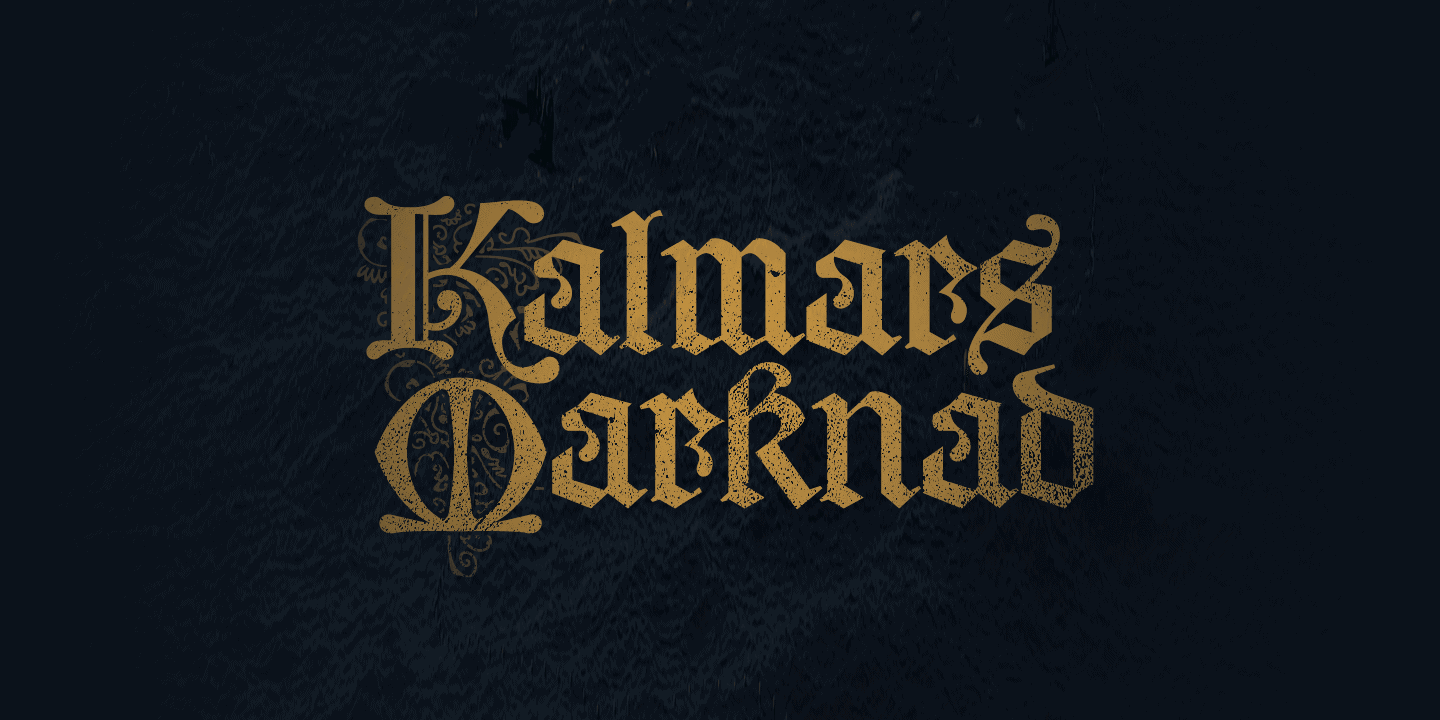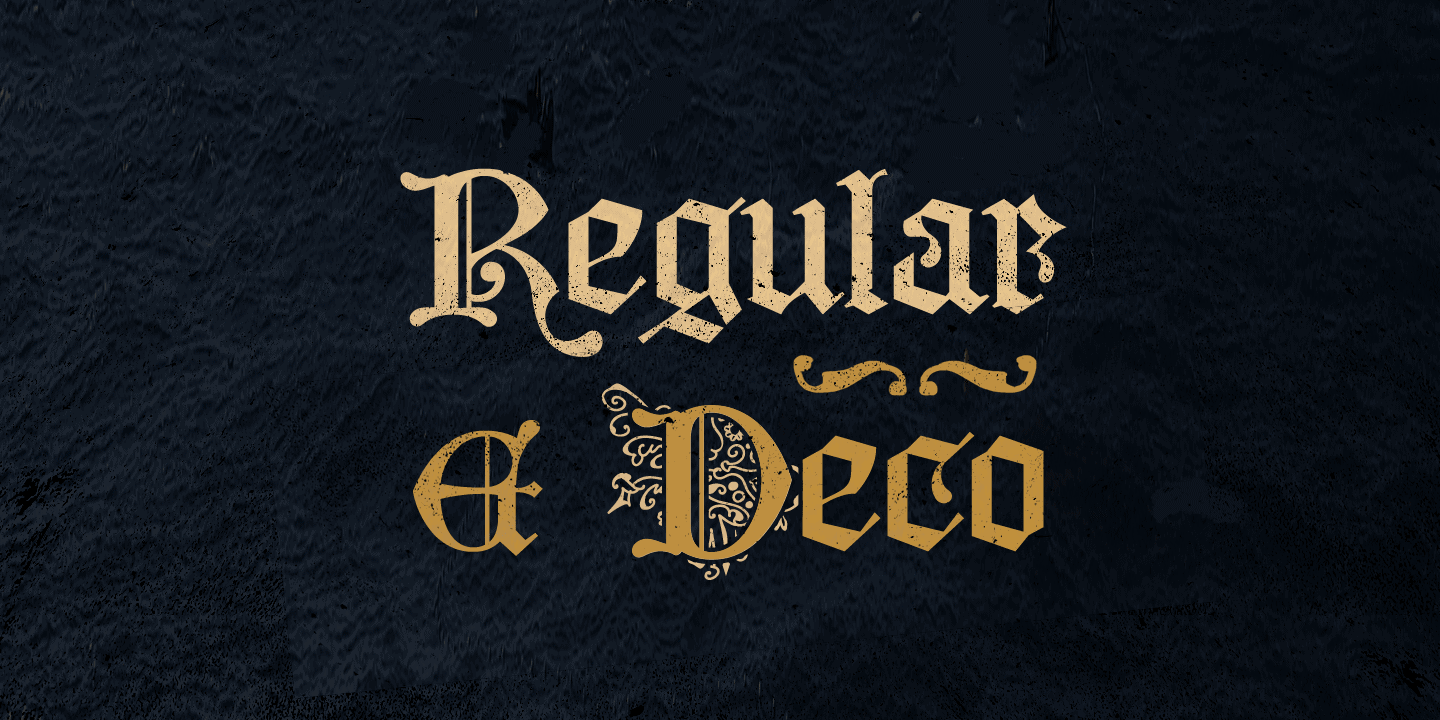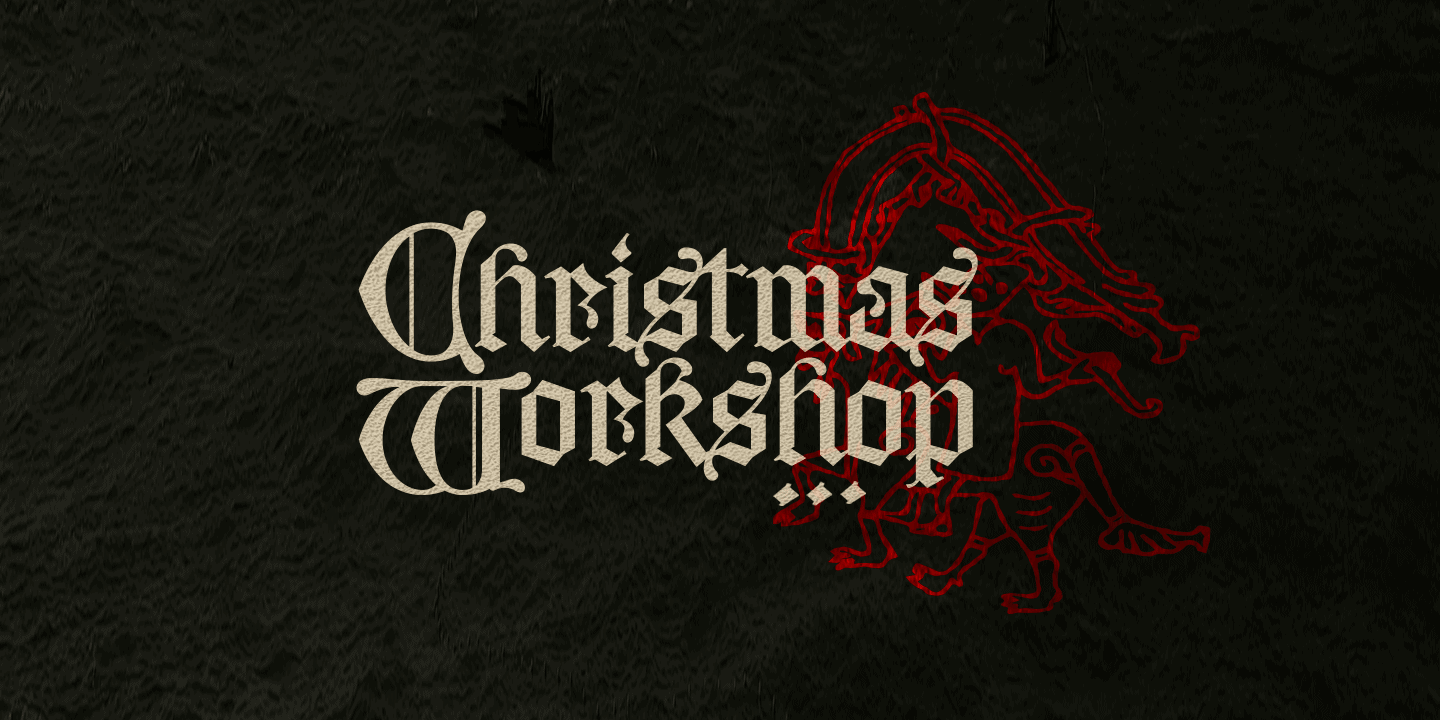
Middle Ages
Middle Ages is a hand-drawn medieval type, designed by Måns Grebäck during 2019.
With its blackletter style it works great in many historical context typesettings, as well as for traditional Christmas projects.
It has a Gothic style that also works well for rock music genres and other rough graphics.
The font multilingual and supports all Latin-based European languages, contains numbers and all symbols you’ll ever need.